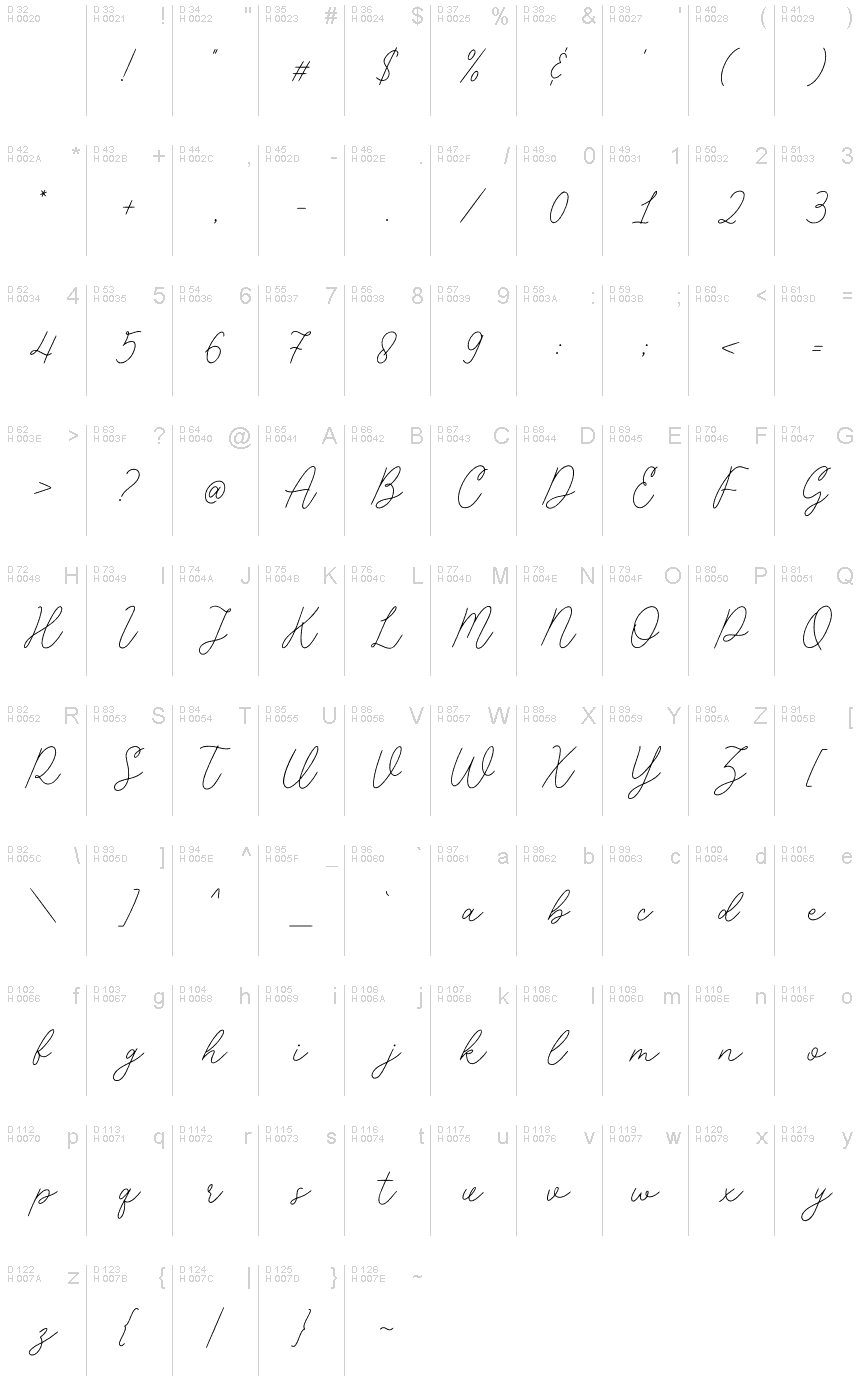
Placepage
Placepage, designed by Allouse Studio, is a captivating handwritten font that effortlessly combines elegance and playfulness. Its extra-light weight adds a delicate touch to any design, making it perfect for projects that require a subtle and refined aesthetic. This versatile typeface is particularly suitable for creating enchanting invitations, beautiful wedding stationery, dreamy poetry books, or whimsical branding materials for high-end boutiques. With Placepage, your designs will come alive with its unique charm and create an unforgettable impression on your audience. Let the magic of this exquisite font elevate your creative endeavors to new heights.